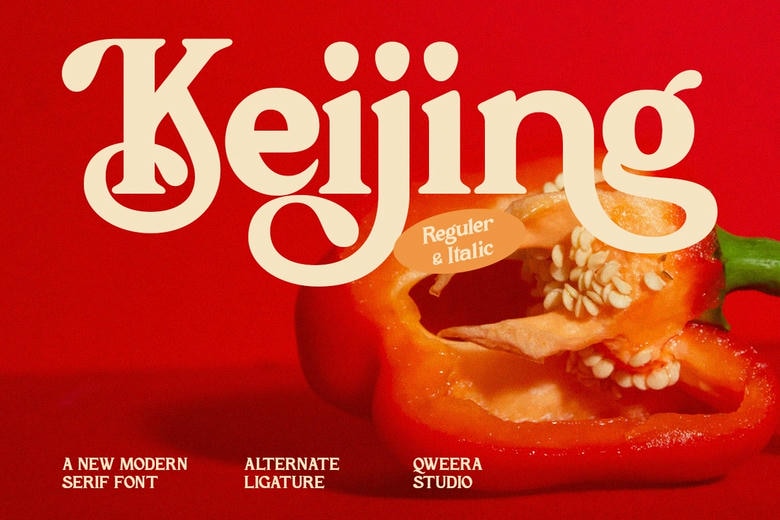
Keijing Font
Keijing Font is a decorative modern serif that is crafted with emphasis and quixotic curves. It is an ideal expressive typeface to use in branding, packaging, posters, and creative display typography.
Keijing is a luxury font featuring the modern retro character and unique branding value with unique letterforms and fashionable alternates. Ideal when designers want to attain distinct typography that has a powerful visual image.
Keijing Serif Font